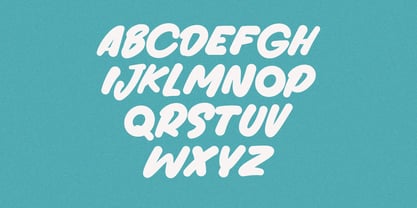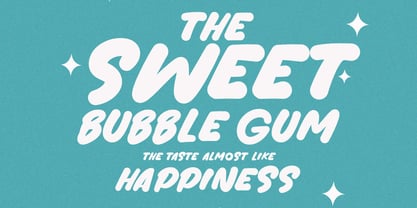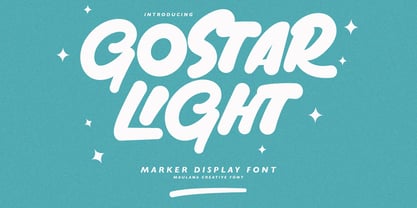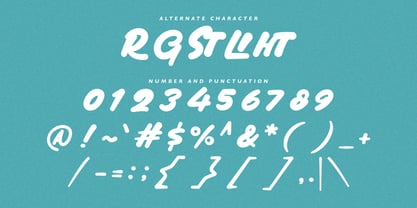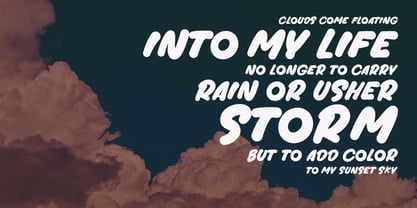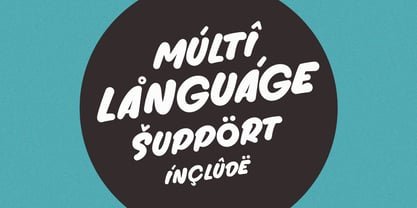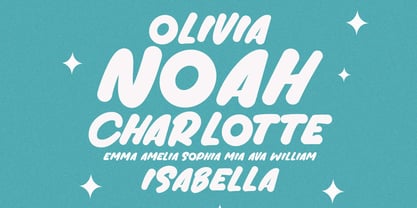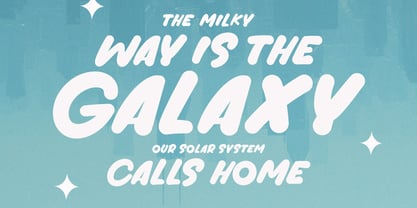
MC Gostar Light
by Maulana Creative
The MC Gostar Light Font Family was designed by Gilang Maulana and published by Maulana Creative. MC Gostar Light contains 1 styles. More about this family
Gostar Light is a brush marker display handwritten font. With bold stroke, fun character with a bit of ligatures and alternates. To give you an extra creative work. Gostar Light font support multilingual more than 100+ language. This font is good for logo design, Social media, Movie Titles, Books Titles, a short text even a long text letter and good for your secondary text font with sans or serif. Make a stunning work with Gostar Light font.